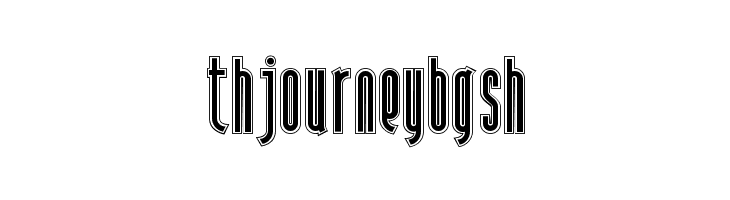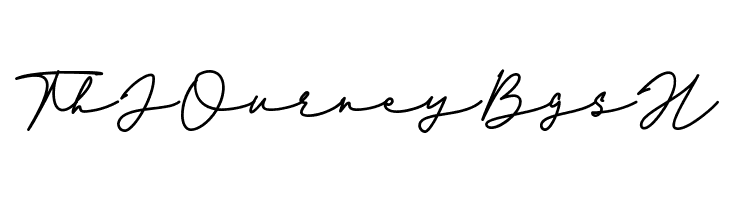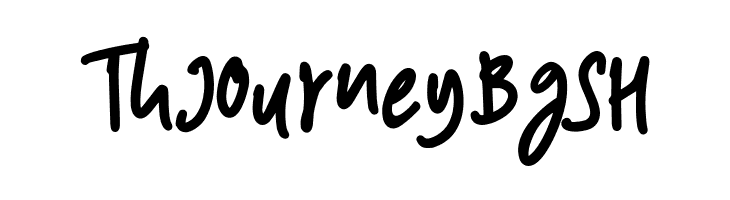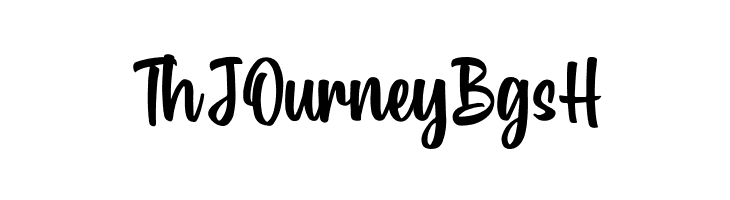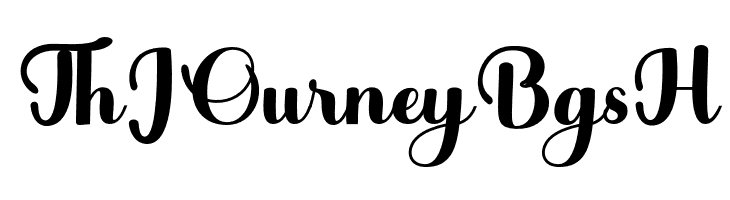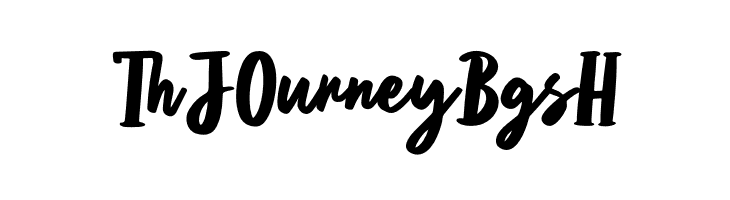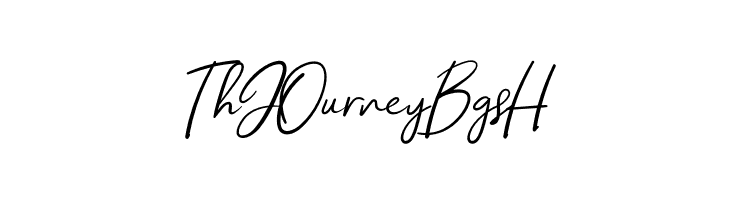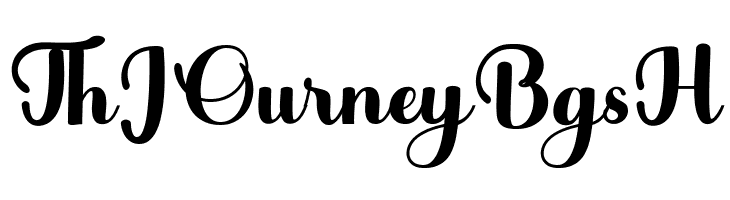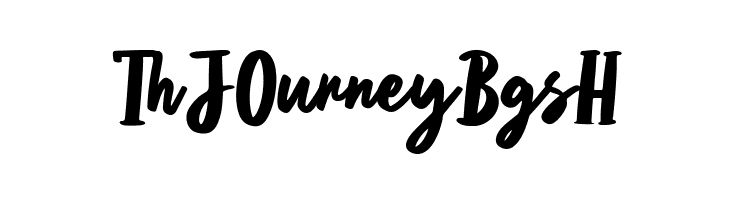
A flowing, elegant script font with a handwritten style.
A bold, outlined font with a modern, geometric style.
A bold, handwritten-style font with high contrast and expressive character.
A bold, handwritten-style font with a playful and expressive character.
A bold, expressive script font with flowing, cursive letterforms.
A bold, modern script font with elegant swashes and dynamic curves.
A graceful script font with fluid, interconnected strokes and elegant flourishes.
A playful, bold script font with a handwritten style and smooth, rounded characters.
A bold, expressive handwritten font with fluid and dynamic strokes.
A bold, handwritten font with a dynamic and playful style.